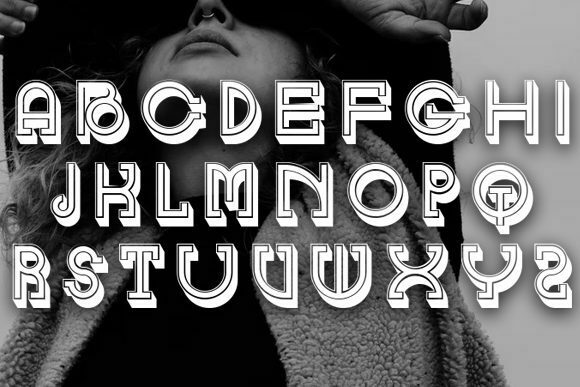
NAGPAKITA FONT SPECIMEN
Introducing Nagpakita, a stunning decor-style slab serif font that breathes life into your designs with its captivating aesthetics. With its eye-catching details and unique flair, Nagpakita is guaranteed to make your creations shine. Whether it’s banners, headlines, covers, posters, or any other design project, Nagpakita adds an awesome and stylish touch.
Nagpakita’s decor-style design sets it apart from traditional slab serif fonts, exuding creativity and uniqueness that instantly grabs attention. Its decorative elements and attention-grabbing details make it the perfect choice for designs that demand extra visual appeal.
Banners become remarkable statements with Nagpakita, as its awesome decor-style adds personality and flair, ensuring your message stands out in any setting, from events to promotions.
Headlines take center stage with Nagpakita’s bold letterforms and decorative touches, creating a visual impact that demands attention on magazine covers, website headers, and social media graphics.
Covers come alive with Nagpakita’s vibrant energy, whether it’s for book covers, album covers, or any other type of cover design. Its decor-style elements create visually appealing compositions that intrigue and entice.
Posters become works of art with Nagpakita, as its unique design adds creativity and excitement, making them visually captivating for concerts, exhibitions, and events of all kinds.
In summary, Nagpakita is an exceptional decor-style slab serif font that brings a unique and captivating touch to your designs. Its versatility across banners, headlines, covers, posters, and more makes it the perfect choice for projects requiring extra visual appeal. Embrace Nagpakita as your go-to font and witness your designs become truly awesome and unforgettable.
Nagpakita’s exceptional design and versatility make it an invaluable asset for designers seeking to elevate their projects. Its captivating aesthetics and unique flair ensure that designs stand out and leave a lasting impression. From banners to headlines, covers to posters, Nagpakita injects an awesome and stylish energy into every creative endeavor.
Embrace Nagpakita as your go-to font and watch as your designs come to life with creativity and excitement. With Nagpakita, your creations are guaranteed to shine with unparalleled visual appeal and captivating charm, setting them apart from the ordinary and making them truly unforgettable.